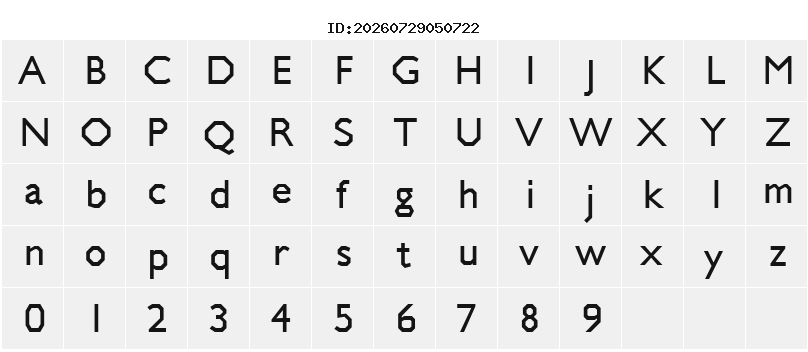
Jillican Preview
• Font Name: Jillican
• Font ID: Typodermic: Jillican Bold: 2001
• Full Font Name: Jillican Bold
• Version: Version 2.01 2003
• PostScript Name: Jillican-Bold
• Character Count: 235
• Designer: Ray Larabie
• Manufacturer: Typodermic
About Jillican.ttf
Jillican.ttf is a modern, elegant sans-serif font designed for ultimate readability and visual harmony. Perfect for branding, headlines, web design, and print materials.